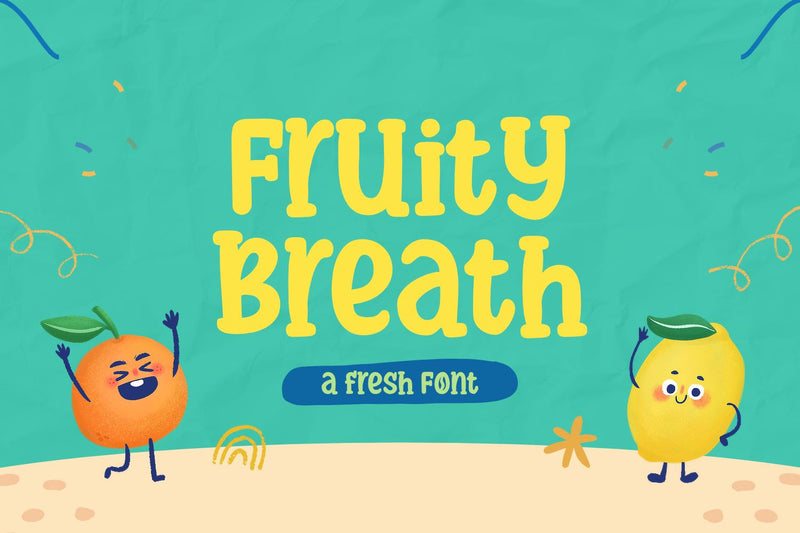
Fruity Breath - a Fresh Font
Fruity Breath is a fresh and fun font with a quirky touch. Fruit Breath provides unique and comic elements in each design to be more playful and casual. This font is perfect for school projects, education, banners, posters and others.